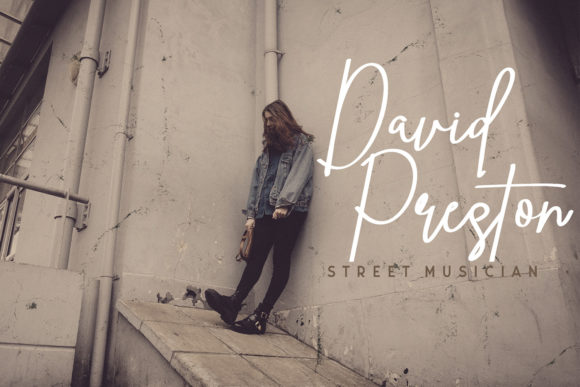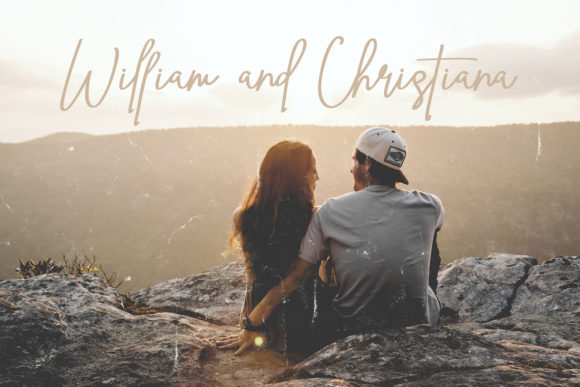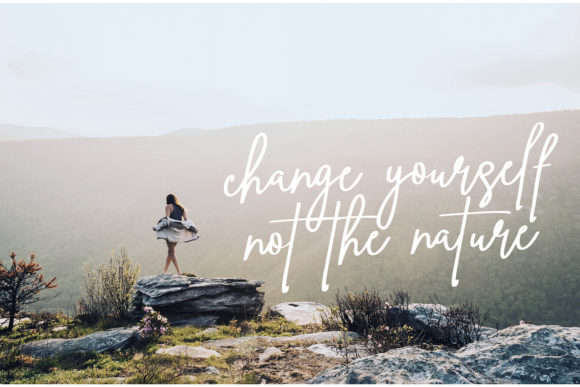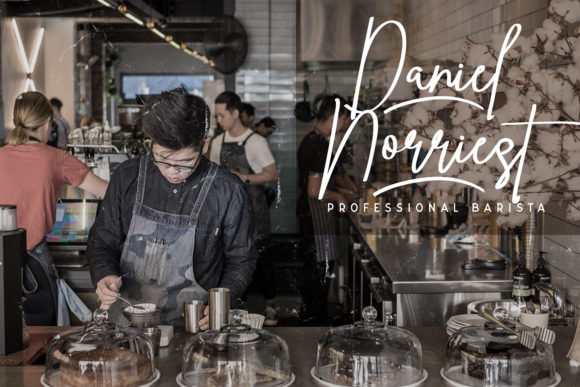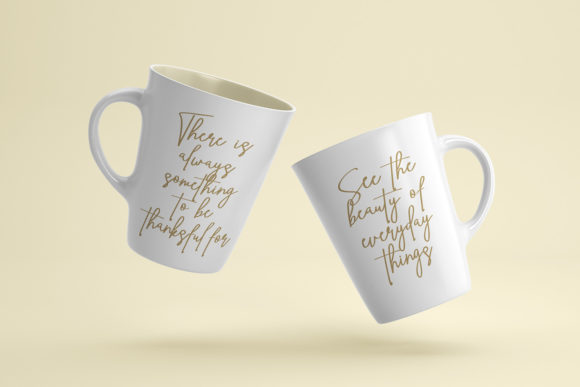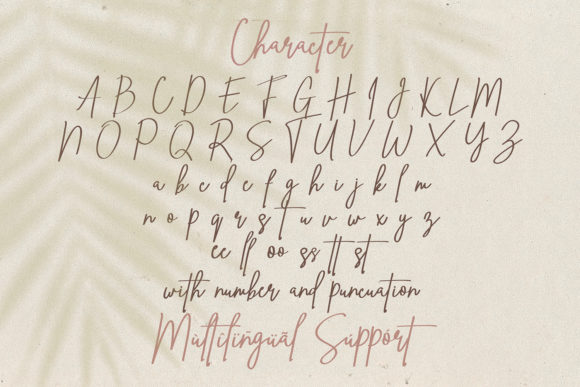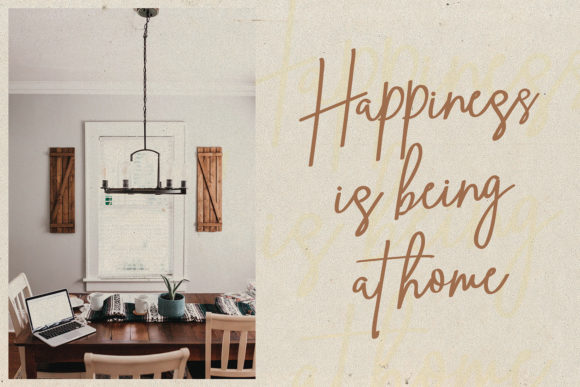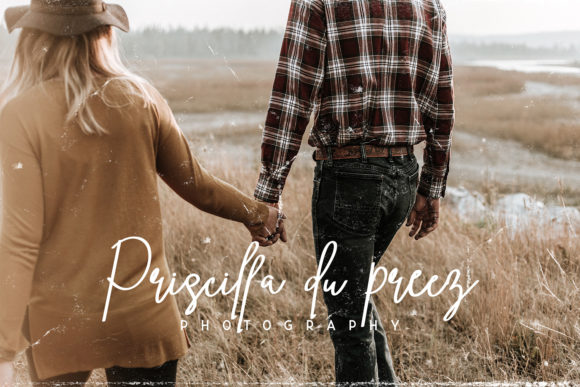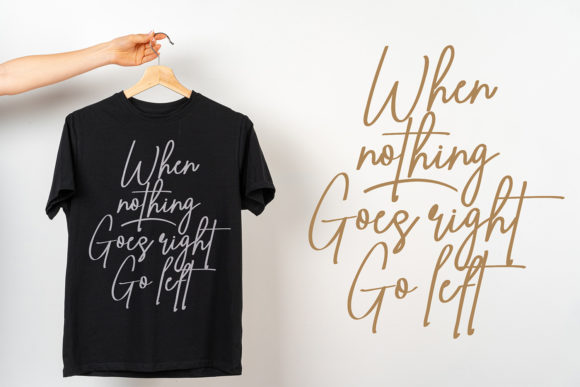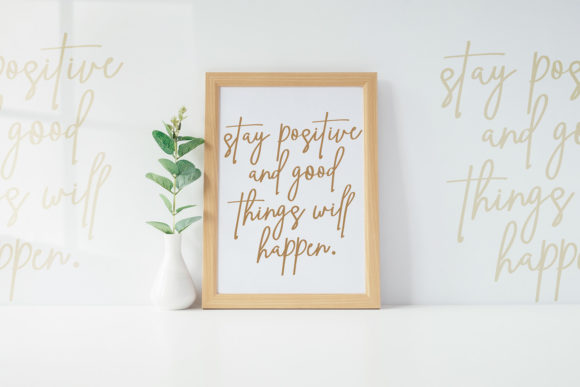
Ving Smith Font
About Ving Smith Font
Ving Smith is a delicate and exquisite handwritten font, masterfully designed to become a true favorite. It maintains its classy calligraphic influences while feeling contemporary and fresh. Fall in love with this font and bring your projects to the highest levels!